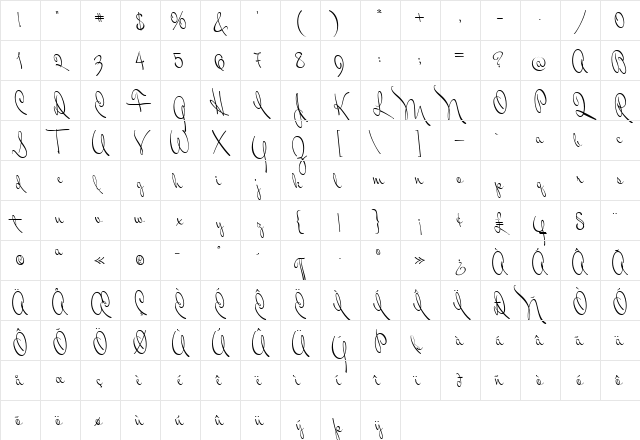
Mr Donaldson Regular Free Font
Mr Donaldson Regular
Foundry: SUDTIPOS. Expanded and digitized from the Bluemlein Script collection by Alejandro Paul
Design Context for Mr Donaldson
Mr Donaldson is a composed and adaptable typeface that performs quietly and consistently across a wide range of design contexts.
Who designed the Mr Donaldson Regular font?
This font was published by SUDTIPOS. Expanded and digitized from the Bluemlein Script collection by Alejandro Paul. Check the technical specs section for copyright and designer details.